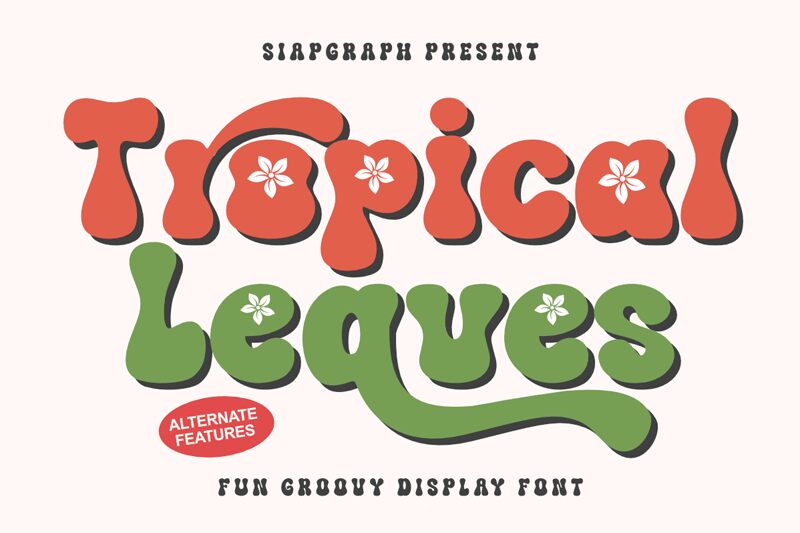
Tropical Leaves font is a free font with a groovy aesthetic by Siapgraph. Taking inspiration from retro designs and tropical elements, it achieves a vibrant feel through the thickness variations of the lines drawing the letters. The font contains organic shapes that give it a more decorative and casual feel even though it keeps its linear and organized structure. Visualize it as the title font for a disco record.
Create dynamic and whimsical designs like music album covers, book titles, movie posters, vintage advertisements, or other printing ideas. It also works for online content like social media posts, video thumbnails, and stylish websites.